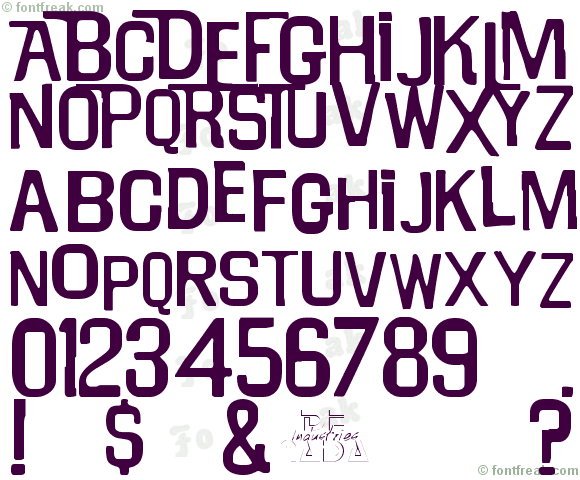
WillRobinson
The Will Robinson font, crafted by the talented Mike Allard, is a striking display typeface that effortlessly blends a contemporary aesthetic with a playful charm. This freeware font features a unique design characterized by its bold, rounded letters that exhibit a consistent stroke weight, providing excellent legibility while maintaining a friendly appearance. The visual contrast within the font is subtle yet effective, allowing it to stand out without overwhelming the viewer. The letters are well-spaced, enhancing readability and ensuring a clean look across various mediums.
Ideal for a range of creative projects, the Will Robinson font is particularly suited for wedding invitations, where its whimsical nature can add a touch of elegance. It also shines in movie posters, where its boldness can capture attention and convey the film's tone. Restaurant menus can benefit from this typeface as well, giving an inviting feel that can tempt diners. Additionally, small business branding and promotional materials can leverage the font's friendly and approachable style to connect with potential customers.
The target audience for the Will Robinson font includes graphic designers looking for a versatile typeface, small business owners seeking to enhance their branding, and content creators who wish to add a distinctive touch to their projects. Its unique character and adaptability make it a valuable asset for anyone in need of creative typography.
What sets the Will Robinson font apart is its ability to combine fun and functionality. The design is not only visually appealing but also practical, making it a fantastic choice for a variety of applications. With the Will Robinson font free download available, you can easily incorporate this delightful typeface into your projects and elevate your designs to new heights.